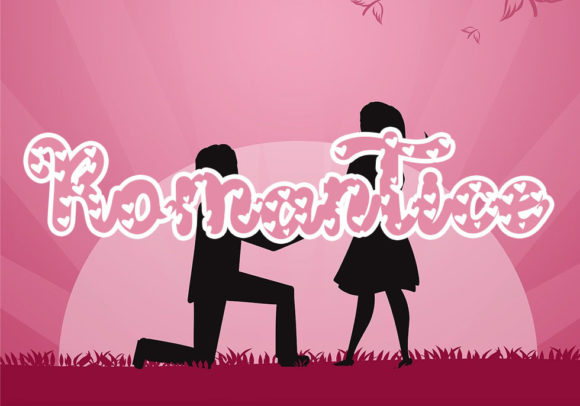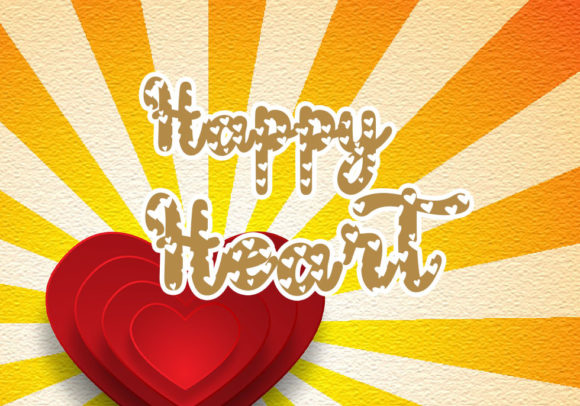
Sweet Love Font
db-ku.com - Script & Handwritten -- Sweet Love is a cute and incredibly romantic script font, featuring tiny hearts on characters. Add this lovely looking font to each of your love letters, wedding invitations or favorite design ideas, and you will be astounded by the outcome.